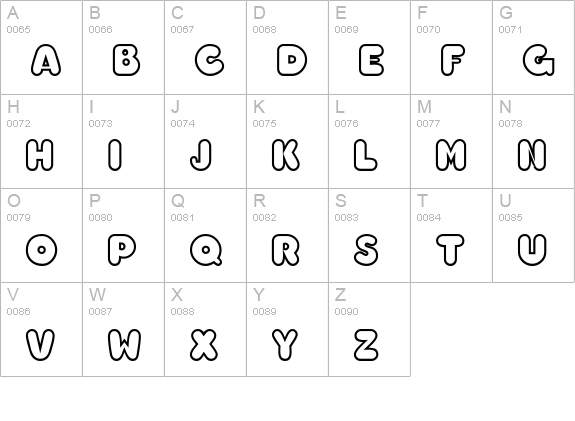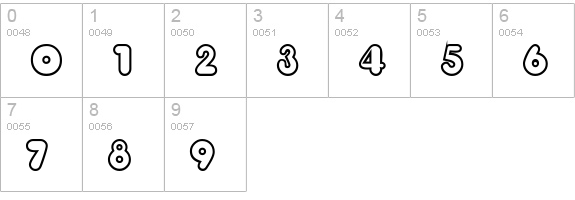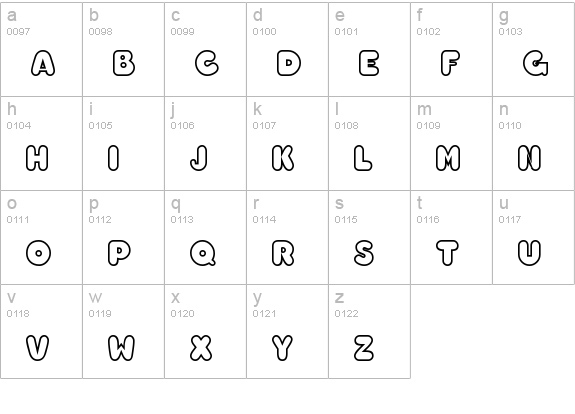
ChubbyOutline Bold is a strong, high-contrast variant in the ChubbyOutline typeface family \xE2\x80\x94 well suited to headlines, attention-grabbing titles, and strong calls-to-action.
ChubbyOutline Bold is a fun and eye-catching font that adds a playful touch to any design. Its bold and chubby appearance makes it perfect for headlines, posters, and logos that need to stand out. This font exudes a sense of youthful energy and creativity, making it a great choice for projects aimed at a younger audience. The best part is, ChubbyOutline Bold is available for free download at FontsMarket.com. You can easily access this font and use it in your personal or commercial projects without any cost. Don't miss out on the opportunity to add this unique and versatile font to your collection today!